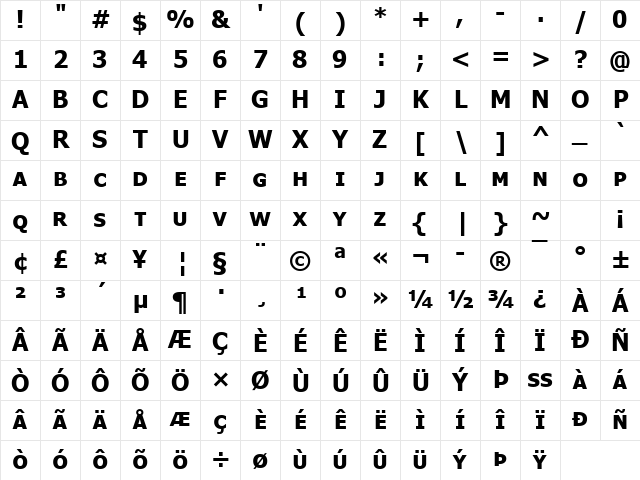
Tahoma Small Cap Bold Free Font
Tahoma Small Cap Bold
Complete Tahoma Small Cap Bold glyph index. Displaying only characters natively supported by Tahoma Small Cap Bold font.
Design Context for Tahoma Small Cap
Tahoma Small Cap is a composed and adaptable typeface that performs quietly and consistently across a wide range of design contexts. Its bold stroke weight gives it real presence on the page.